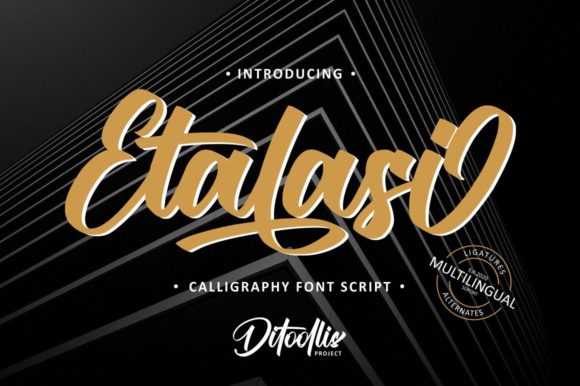
Step into the realm of visual artistry with Etalasi Font, a striking and expressive creation by Ditoollis Project. This hand-lettered font exudes elegance and personality, making it the perfect choice for logo designs that demand attention. Etalasi's bold strokes and confident curves evoke a sense of strength and dynamism, adding a touch of vintage charm to your designs.
Unleash your imagination and craft logotypes that resonate with your brand's identity. Etalasi's captivating style lends itself seamlessly to a wide range of design aesthetics, from classic and timeless to modern and edgy. Whether you're designing for a fashion label, a creative studio, or a lifestyle brand, Etalasi has the power to elevate your designs and leave a lasting impression.
Elevate your creativity and embark on a typographic journey like no other. Etalasi Font is not just a font; it's a gateway to a world of visual expression. Its versatility knows no bounds, making it the perfect companion for creating unique and captivating headlines, social media graphics, and branding materials. Embrace the allure of Etalasi and unlock the full potential of your design endeavors!